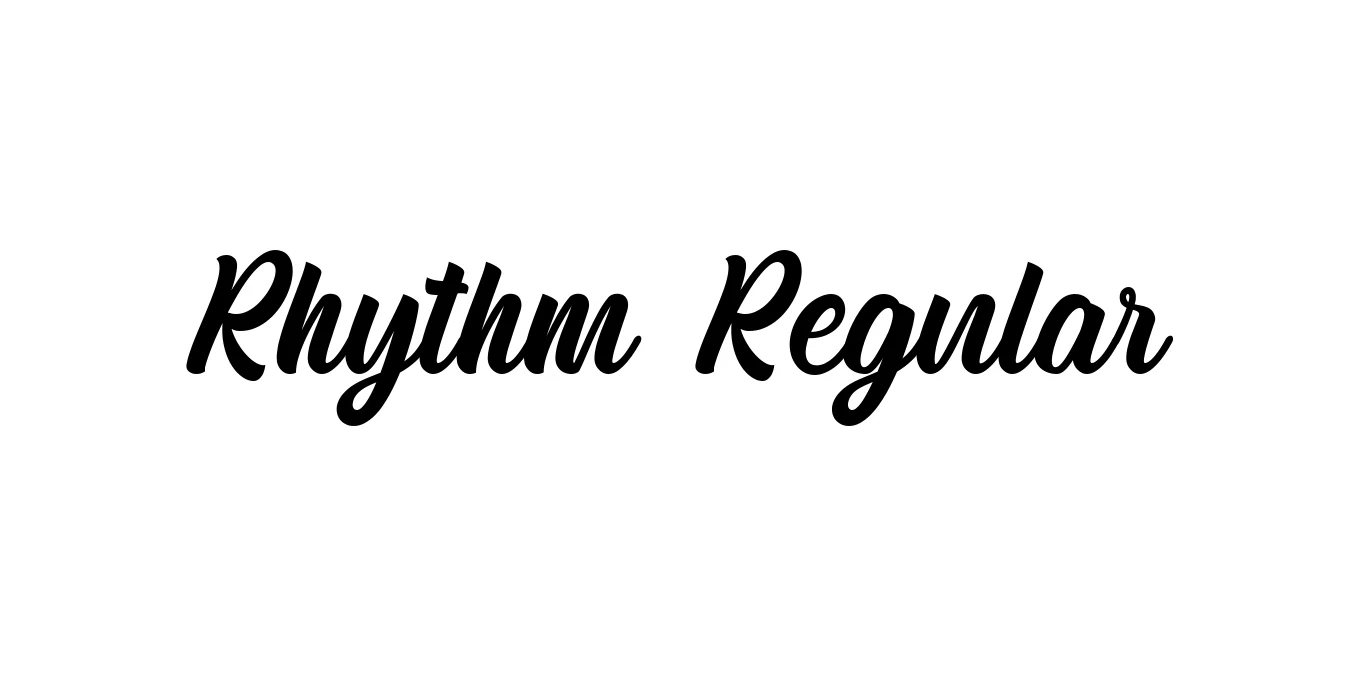
Rhythm Regular
Designed by Youssef Habchi
Rhythm Regular is a contemporary brush-style typeface designed with a focus on fluid motion and artistic expression. Its strokes are characterized by a natural, handwritten feel that conveys a sense of energy and spontaneity, making it a standout choice for high-impact display work. This font is particularly effective for creative projects that require a touch of human connection and organic flow rather than rigid geometric structures.
Originally released as part of a collection of expressive display fonts, Rhythm has gained significant popularity among graphic designers for its versatility in modern branding and advertising. Whether used for a signature-style logo or dynamic social media graphics, its balanced weight and rhythmic spacing ensure high legibility while maintaining a unique, hand-crafted stylistic edge.
Rhythm Regular Best Uses
Ideal for creating memorable and expressive logo marks.
Perfect for Instagram quotes, stories, and catchy post headings.
Great for bold, high-energy promotional materials and posters.
Adds a personal, artisanal touch to boutique product labels.